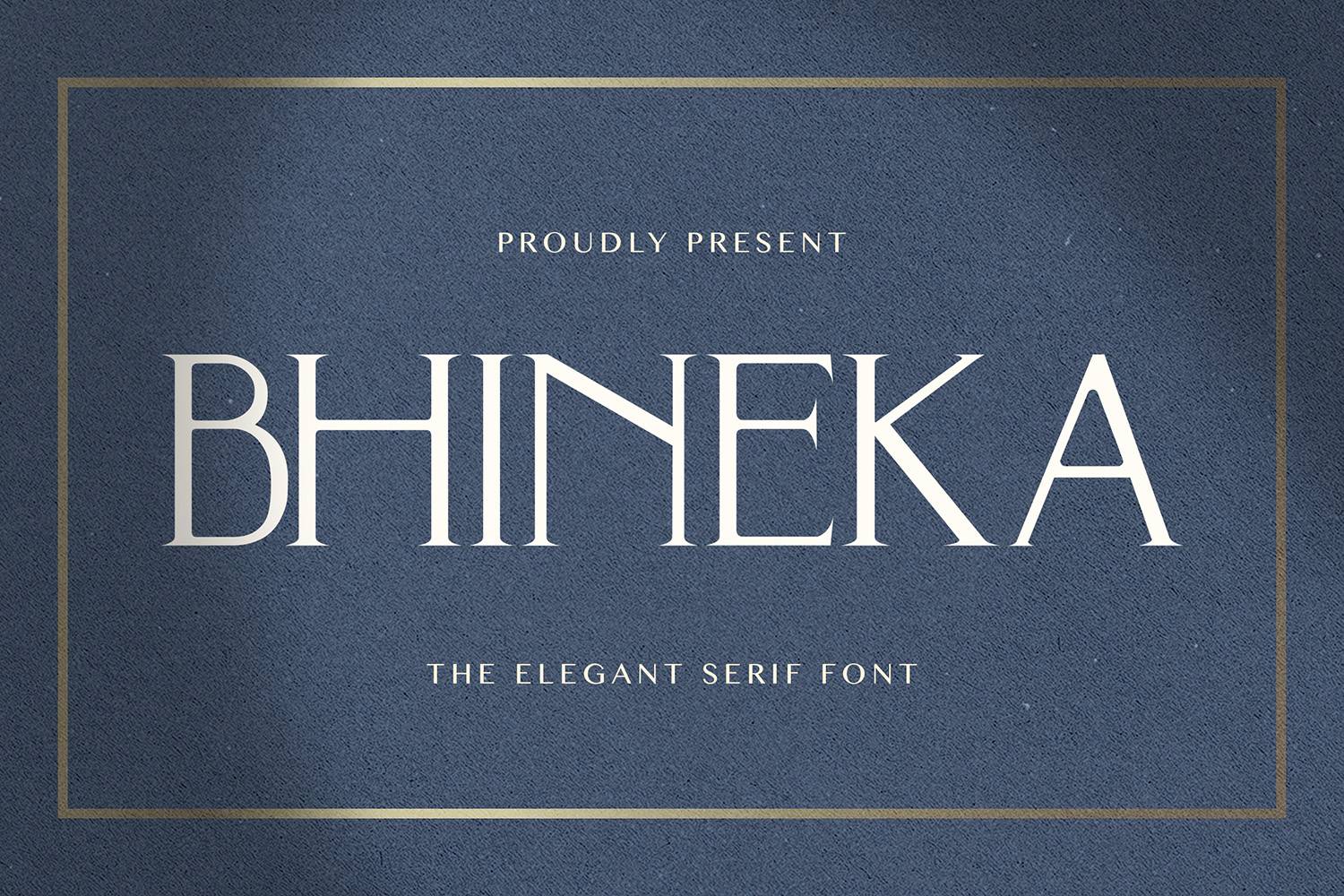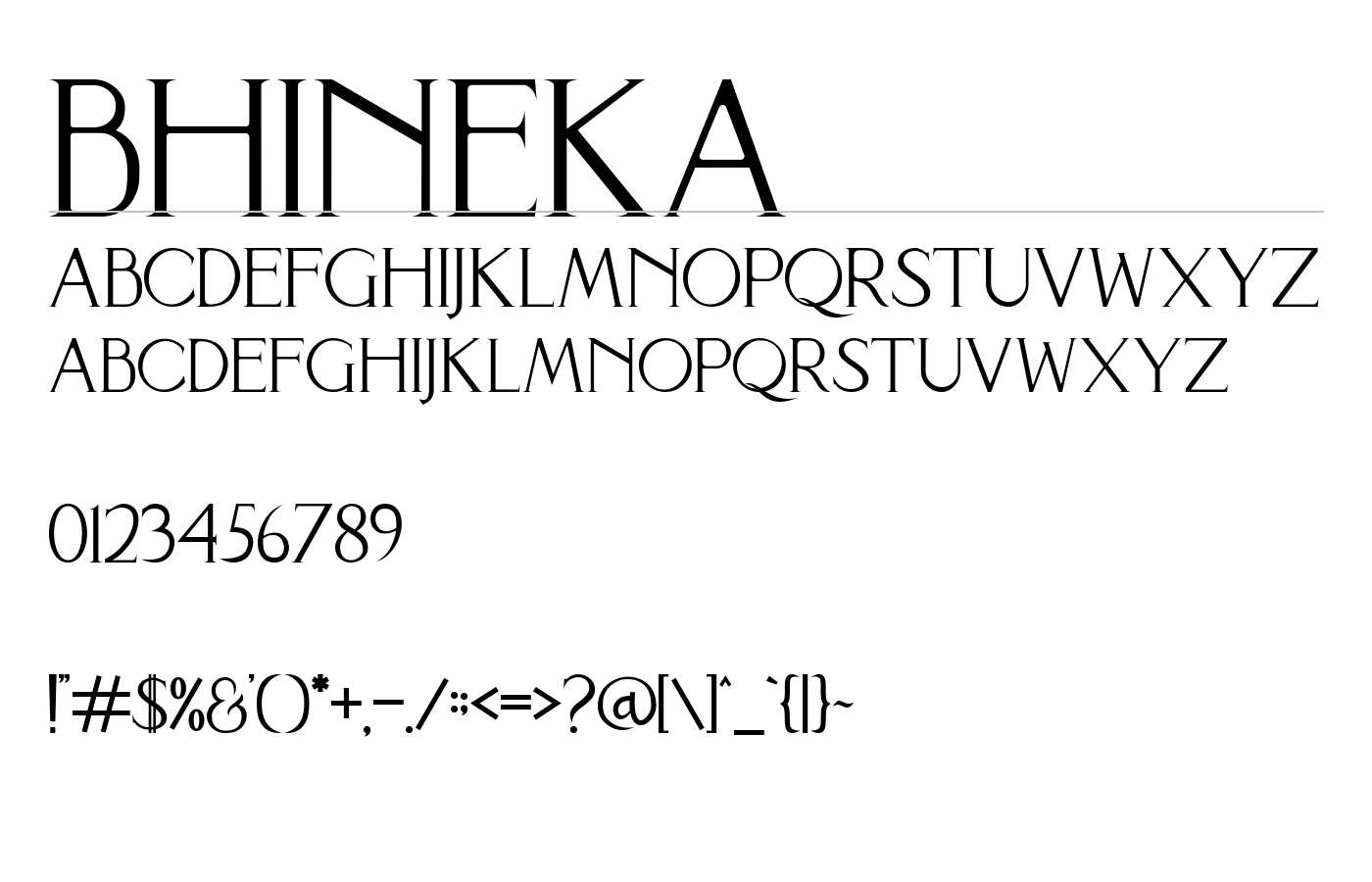
Bhineka is an elegant serif typeface characterized by its high contrast between thick and thin strokes, sharp, tapered serifs, and a slender, tall appearance that evokes a refined, sophisticated feel. Its delicate stroke style and unique letter shapes, like the pointed Q tail and distinctive ampersand, make it ideal for luxury branding, editorial design, and high-end logos where a touch of classic style with modern finesse is desired. This font works best in headlines and display settings where its graceful details can shine without losing readability.
Bhineka Font
About Bhineka Font